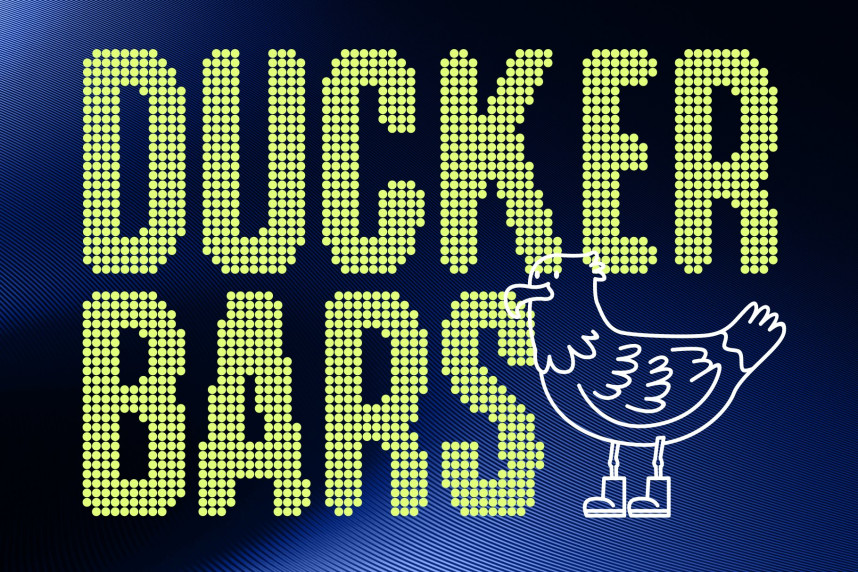
Godger Rounded Disco Font
Godger Rounded Disco Font – Bold Condensed Typeface with Retro Spark
Bold Condensed Style with Disco Personality
This is a bold and condensed sans serif designed to command attention in titles and headlines. Its compact proportions allow more text to fit in tight spaces while maintaining strong readability. Enhanced with playful disco-inspired dot details, the font gains a lively rhythm that feels energetic, cheerful, and full of character.